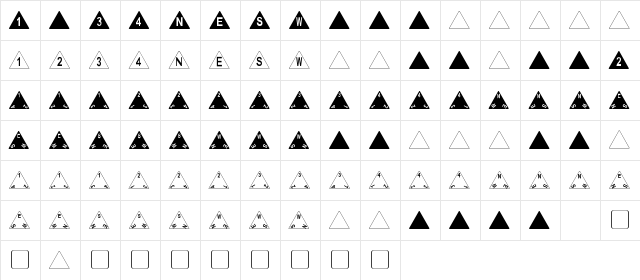
DPoly Four-Sider Regular
| Foundry | Neale Davidson |
| Designer | Neale Davidson |
Design Context for DPoly Four-Sider Typeface
DPoly Four-Sider is a composed and adaptable typeface that performs quietly and consistently across a wide range of design contexts.